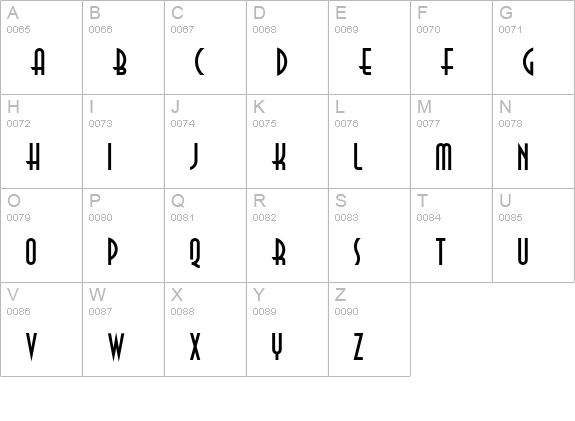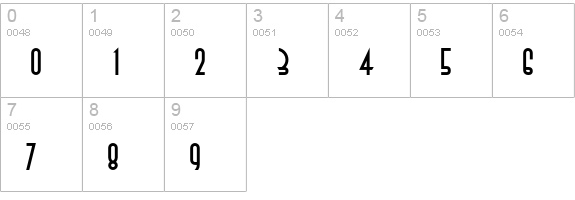
AnnaICG Font Details
Introducing AnnaICG font, a stylish and versatile typeface perfect for a wide range of design projects. This elegant font features intricate details and a modern aesthetic that will elevate your designs to the next level. With its eye-catching curves and sleek lines, AnnaICG font is sure to make a statement in any project. Best of all, AnnaICG font is completely free to download at FontsMarket.com. Whether you're working on a branding project, website design, or any other creative endeavor, this font is a must-have in your toolkit. Don't miss out on the opportunity to enhance your designs with this beautiful and unique typeface. Download AnnaICG font today and take your creations to new heights!